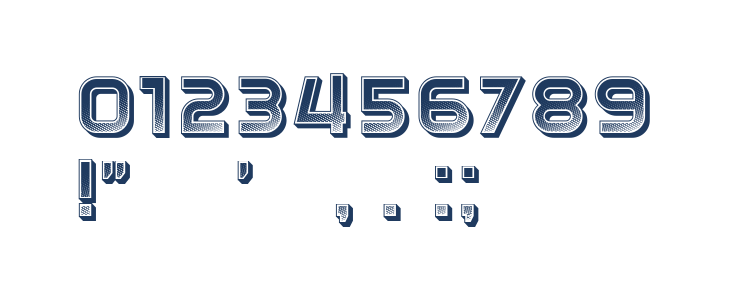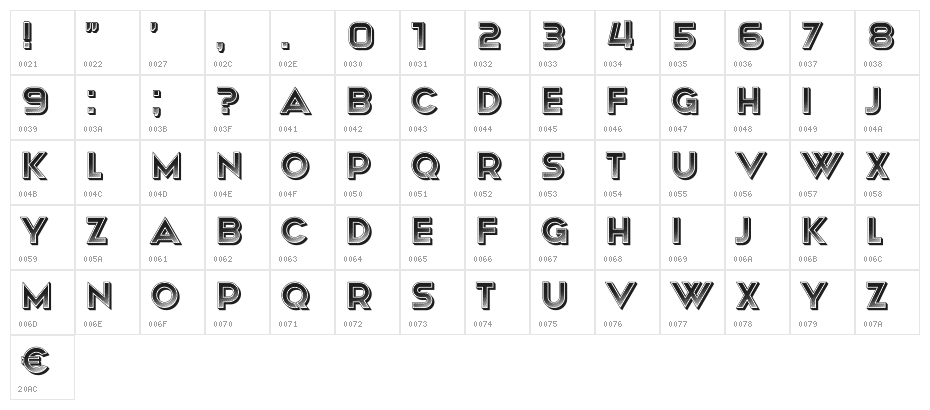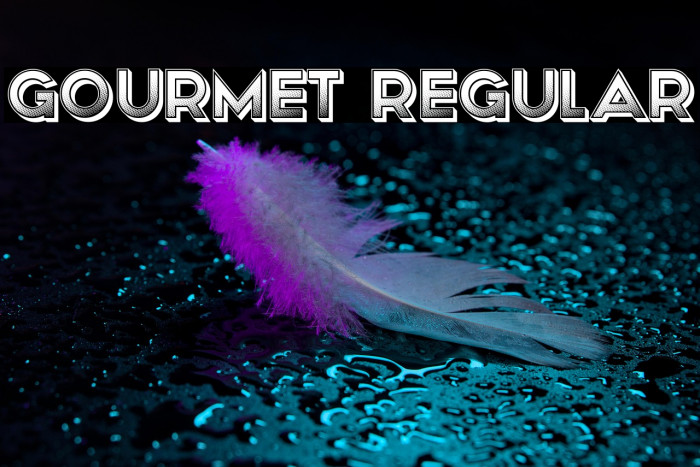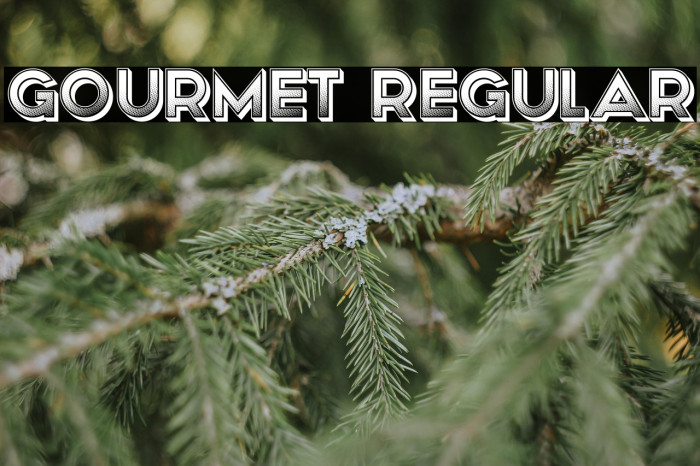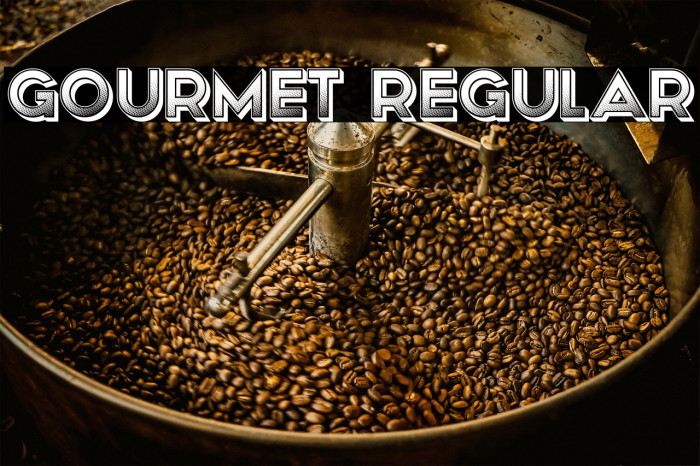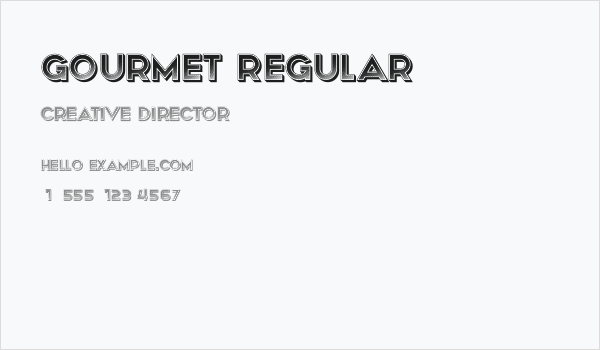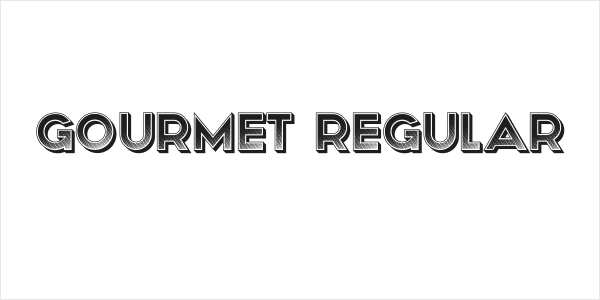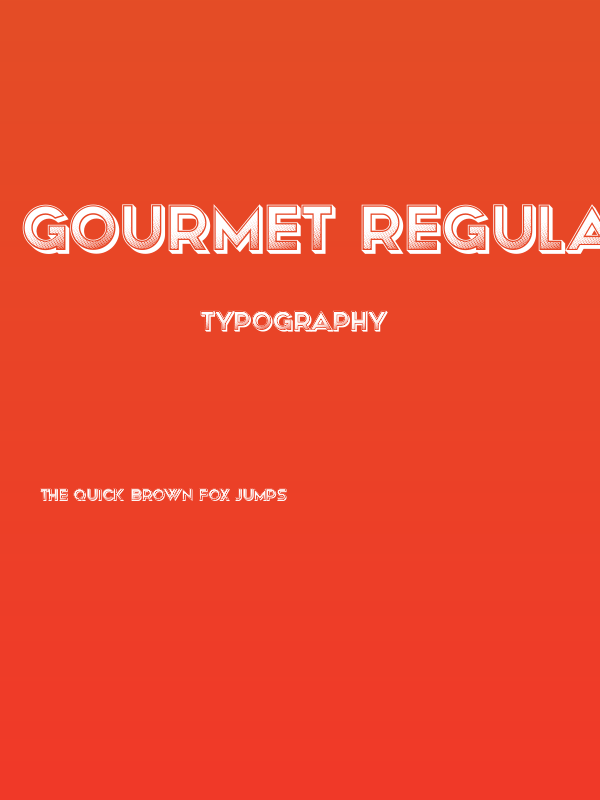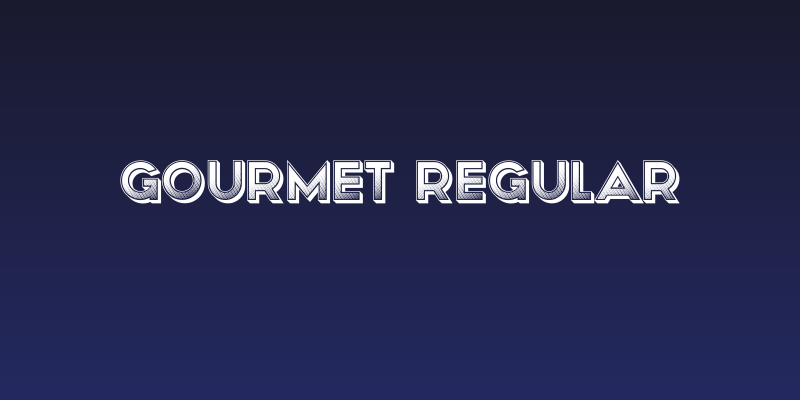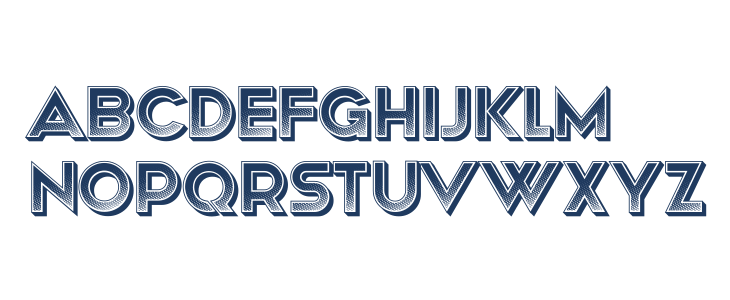
Gourmet Regular Font
Gourmet Regular Description
This font features a bold, decorative style with a three-dimensional effect created by a shadow and dotted texture within each character. The uppercase letters are prominent and eye-catching, making them ideal for attention-grabbing headlines or titles. The numbers and special characters share the same bold and textured design, ensuring consistency across all elements. The font's unique style is both modern and playful, with a touch of retro influence, making it versatile for various creative projects.
| Proposed Projects | Ideal for posters, logos, branding, and any design needing a bold, standout typeface. |